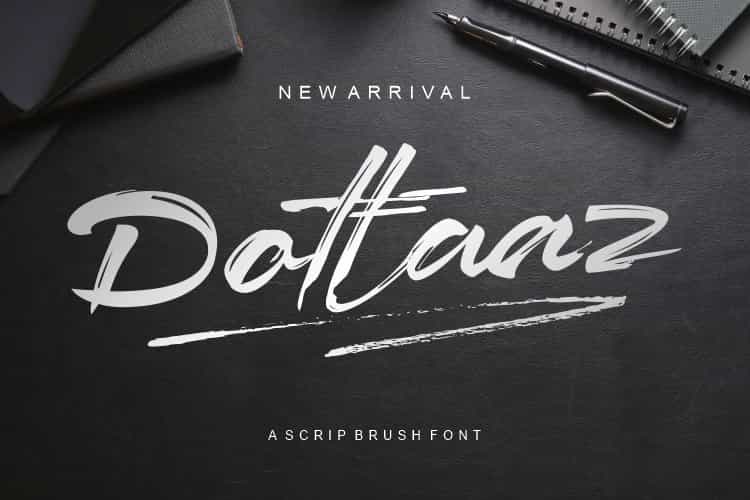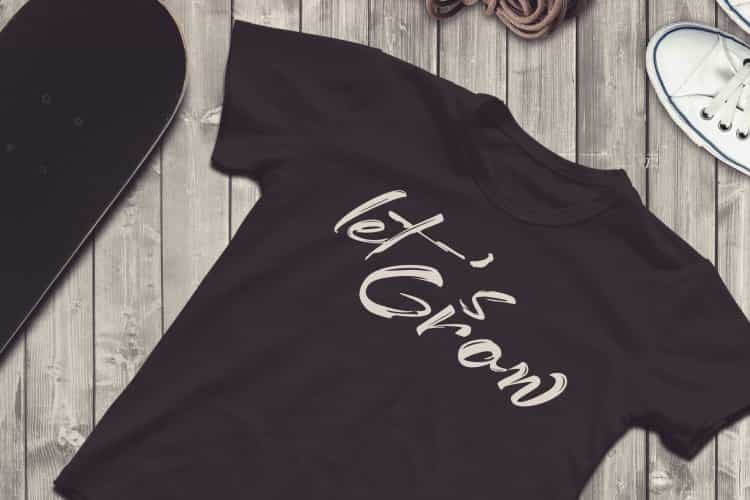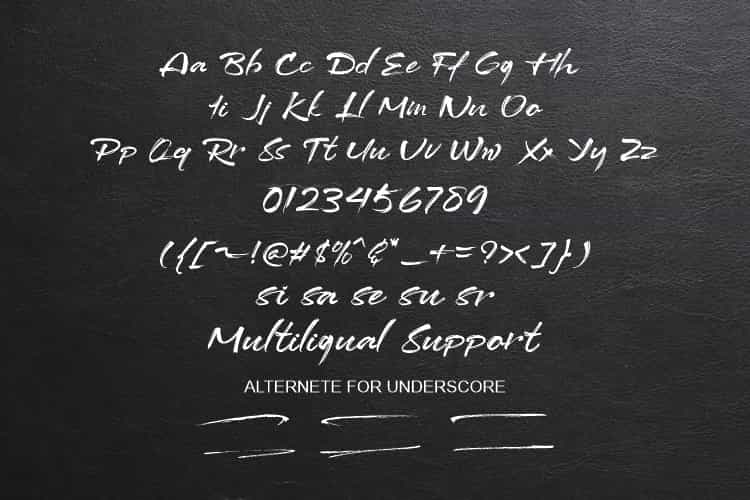
Dottaz is script font with its distinctive brush style is perfect for titling where the font needs to stand out, and for formal uses such as for labels, invitations, and books, logos, magazines, greeting cards, wedding or anniversary cards, packaging, fashion and cosmetics, stationery, novels, labels, and any other type of advertising.